Today, we want to talk to you about luxury font pairings. Finding the right fonts is a very big deal.
If you want a beautiful brand identity, you need to know about these things. A font pairing is when you match two different fonts together.
You want them to look like best friends on the page. Finding a perfect match is sometimes hard, but we are here to help you.
When you start your next project, you need to pick the best letters. A simple change in letters can make your work look very rich and expensive.
If you are doing logo design or website design, you need to know about these things. We will show you the best font pairings to help your visual identity. You can use them for social media or even a printed business card.
We have many great font choices ready for you. Let us look at how you can make your design projects look absolutely amazing.
Our goal is to make sure your target audience loves what they see. When people see good fonts, they trust you more.
What Makes Luxury Font Pairings Essential For Premium Branding?
To make an elegant brand, you need to think deeply about the letters you use. Every single word on your page matters a lot.
When you use beautiful luxury font pairings, your work looks very fancy. Luxury branding is all about making things look top-tier and special.
People always notice when you take the time to pick good fonts. It shows that you care about your work.
Detail matters a lot in this kind of work. You want your target audience to feel very special when they read your words. They should see your design and think it is very rich and important. Finding a perfect match helps you do exactly that. Your brand identity becomes much stronger.
The Psychology of High-End Typography
Our minds play funny tricks on us when we read. When we see a serif font, we often think of history, money, and wealth.
A classic font makes us trust the company right away. Luxury brands know this secret very well. They often pick a heavy serif typeface because it gives a wonderful classic look. It also gives a very neat professional look.
The small lines on the edges of the letters tell a beautiful story. They give a strong sense of sophistication. The true brand’s personality shines right through those little letters.
If you use very thin strokes, the letters look delicate and soft.
When there is high contrast between thick lines and thin lines, it feels very dramatic and loud. These small things change how people feel when they see your work. They help your visual identity grow very strong and tall.
How Typography Elevates Perceived Value
If you want your products to sell for more money, they need a very elegant look. The right font combinations make things look much more costly. When buyers see a tiny touch of sophistication, they will happily pay more money. A clean look shows that you do not rush your work at all. Typography is just the art of how words are designed and placed.
Good typography adds a lot of value to anything you make.
Even if you only use free fonts, they can still look like a million bucks if you pair them right. Your printed marketing materials will look highly trusted and safe. People will really love your hard work. It is a great choice to learn all about these fun things.
It is the best way to make your brand identity shine bright.
7 Timeless Luxury Font Pairings For Your Next Design Project
We picked out seven of the best ideas for your big creative projects. You can use these fun ideas for your web design or for printing on paper.
Every single font family we list here works very well together. Let us look at these wonderful font pairing examples to help you learn.
Classic Serif Meets Modern Sans-Serif (E.g., Playfair Display & Lato)
Our first bright idea mixes old things and new things. A classic serif looks very smart and wise. We truly love the font called Playfair Display.
It is a very beautiful display font. It has a very fancy and proud style. We really like to match it with a clean font like Lato.
Lato is simple and gives a sharp modern look. This mix creates a perfect balance on your page. The big title uses the fancy letters.
The regular body text uses the simple letters. Because of this, your body copy will be so easy to read for anyone. This is actually one of the absolute best google font pairings you can find. It shows off a bright and happy modern design. It is a great font pairing for any new idea.
Elegant Script and Minimalist Grotesque
Script fonts look a lot like cursive handwriting. They flow on the bright page like water. They are very pretty and fancy.
But they can be very hard to read if they are too small. So, you must pair them with very plain letters.
We call these simple letters a minimalist grotesque. They do not have extra lines or tails. They are totally plain and completely clear.
The fancy script is the big star of the show. The plain font is the quiet helper. This makes your body font very friendly to read. It is great for a big title and small text underneath. It gives your page an elegant look without trying too hard. Your social media will look so good with this.
High-Contrast Didone Fonts with Clean Geometric Sans
Some beautiful fonts have very thick lines mixed with very thin strokes. This special look is called high contrast. A very famous font like this is Abril Fatface. It is extremely bold and thick. It catches your eye right away from far away. We love to pair it with a crisp geometric design.
A geometric font uses perfect circles and perfectly straight lines. It is very neat, tidy, and clean.
This wonderful mix looks very high-fashion and expensive. Famous magazines really love this rich style. It is bold but also very neat and smart.
It is a wonderful way to show off your smart, modern fonts. When you need a professional look, this is a perfect match.
Monospaced Utility Meets Refined Calligraphy
Monospaced means every single letter takes up the same space. Think of an old metal typewriter. It looks very busy, smart, and serious.
Calligraphy is like painting pretty letters with a soft brush. It is very soft and romantic. When you put them both together, magic always happens.
The soft brush letters soften the hard typewriter letters perfectly.
It is an amazing trick for your next design. People will stop, stare, and smile. This simply shows that you know how to use different fonts.
It brings a very cool professional look to your screen or paper. Every single word looks important here. It is always a great choice.
How to Choose the Perfect Luxury Font Pairings?
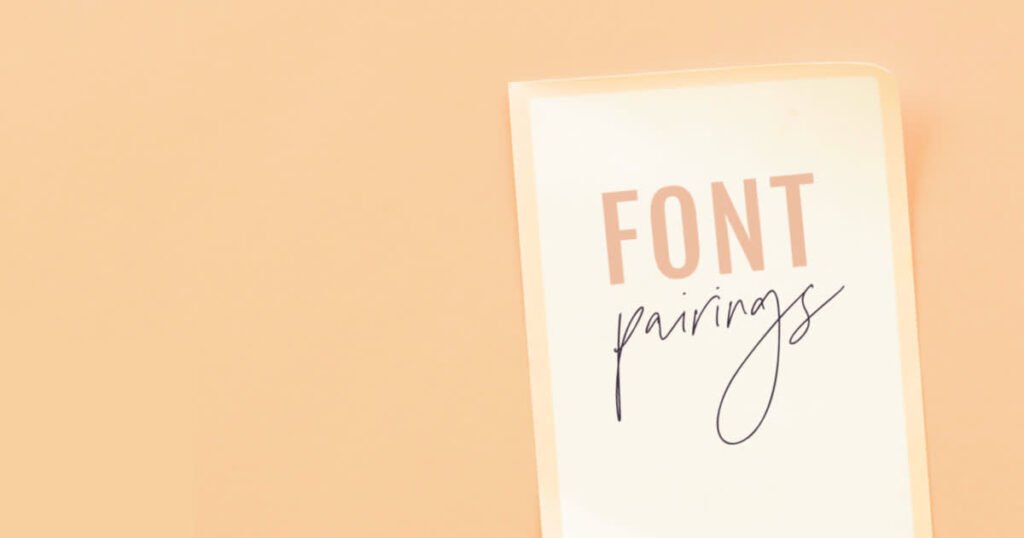
Picking the best letters is definitely an art form. It is also a bit of a science. You need to know exactly what works well together.
Here is how you do it for your luxury branding and brand identity.
Balancing Contrast and Harmony
You do not ever want your fonts to fight with each other. You want them to happily dance together. You must work hard to find the perfect balance.
You can try using different weights. Use a very heavy, dark title for the big letters. Then use a very light, thin font for all the small details.
This naturally brings peace and harmony. The font combinations must absolutely share something nice.
Maybe they share the exact same height. Maybe they share the same perfect roundness. When they share a tiny detail like that, they look like close friends. This is true for all of your creative projects.
Finding sweet harmony makes your hard work completely shine.
Prioritizing Legibility Across Print and Digital
Legibility just means how easy it is to quickly read the words.
If people cannot read your words, they will sadly leave. You must make very sure your words look good in small sizes.
For web design or website design, shiny screens can blur tiny lines very fast. You need a very clean font for all the small parts.
For a printed business card, wet ink can spread and look messy.
You must test all your good choices carefully. The important letters in your marketing materials must always stay sharp and dark.
If you test them well, your target audience will be very happy and thankful.
Aligning Typography with Your Brand Archetype
An archetype is just like a character type in a nice storybook. Is your brave brand like a wise old king? Or is your fun brand like a magical young fairy?
Your picked letters must closely match your brand’s soul and heart. If you want to seem like a wise king, use a heavy, old serif typeface.
If you want to seem very new and fast, use sleek modern fonts. Your strict visual identity must always match your big words.
Think very deeply about this when you are making new social media posts. Even on social media, your smart brand voice must be loud and clear.
Good font choices easily tell the right story to everyone. Your true brand’s personality will be perfectly shown to the world.
Common Mistakes to Avoid When Creating Luxury Font Pairings
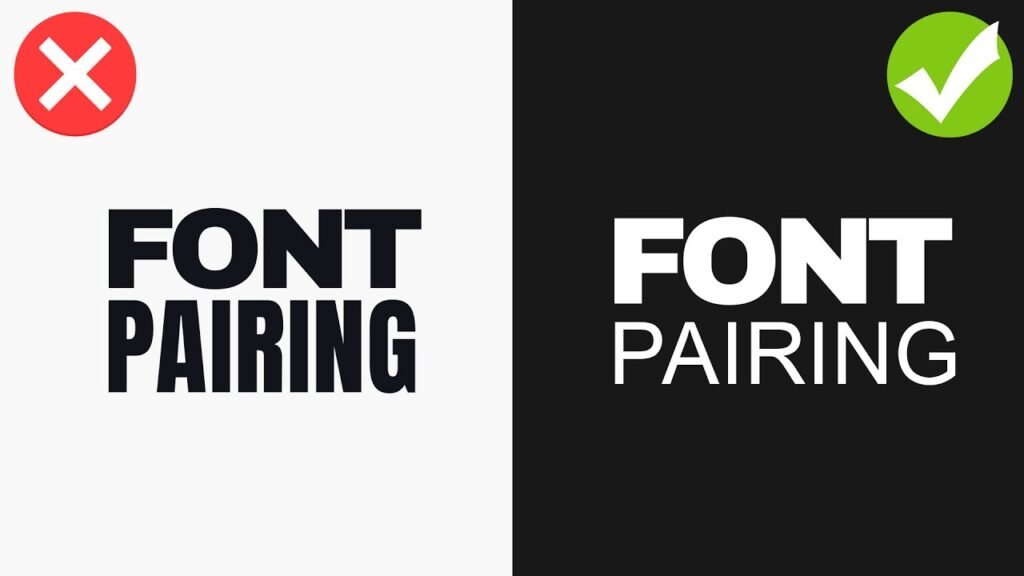
Everyone definitely makes little mistakes from time to time.
We really want to help you easily avoid them. Paying close attention to mistakes makes your design projects much better.
Let us talk about exactly what not to do when picking your letters.
Overcomplicating with Too Many Fonts
Please do not use too many different kinds of letters. It always makes a very big, ugly mess.
Just two fonts are almost usually enough. Sometimes three is okay if you are very careful. But four is far too many for one page.
Your whole brand identity will instantly get lost in the mess. It will clearly look confusing and weird. Your nice readers will not even know where to look first. Keep it simple and nice. A clean, simple page shows huge confidence and power. That is exactly why top luxury brands stick to just one or two choices always. Less is truly and honestly more.
Finding the right fonts means you absolutely do not need a lot of them.
Ignoring Kerning and Letter Spacing
Kerning is the tiny space between just two letters. Letter spacing is the total space between all letters in one word.
If letters are far too close, they bump and touch. It looks terribly messy and bad. If they are way too far apart, the poor word breaks in half.
Detail matters a huge amount right here. You must look very closely at the empty spaces. A beautiful font family easily looks cheap and silly if the spacing is bad. Always firmly check the spacing in your big titles. Your big creative projects absolutely deserve your careful checks.
The empty white space is just as important as the dark ink. Make sure you use good fonts that have perfect spacing.
FAQ’s:
What Are the Best Free Luxury Font Pairings Available on Google Fonts?
Google Fonts is an amazing place. It holds many free fonts that are safe for commercial use. One of the absolute best pairs is using Cormorant Garamond for the big title and a simple sans-serif for the small text.
Another perfect and great choice is using EB Garamond. Both are very fancy and old. They are totally perfect Google font pairings for everyone. They easily give a very rich feel without ever costing any money. You can find many wonderful and safe options right there.
Why Do So Many Luxury Brands Use Serif Fonts?
A serif font looks very old, safe, and extremely rich. It has tiny little feet on the edges of the big letters. These tiny feet make the words look stable and planted. Many famous, rich fashion brands loudly use a classic serif.
It clearly shows history and time. It shows they have been around for a very long time safely. It naturally provides a gorgeous classic look. People easily trust old things that look stable and safe. It is a very great choice for selling expensive, nice things.
Can I Use More Than Two Fonts For A Luxury Brand Identity?
You definitely can, but it is a very big risk. Using only two different fonts is always safe and smart. It quickly creates a perfect balance that people love. If you desperately use three, one should be very quiet and small.
Maybe just use it for tiny numbers or tiny dates. But please do not use many loud, big fonts. Your logo design should only ever have one or two styles safely. Keep your visual identity strict and very neat. A neat, clean look is always much better for luxury branding.
What Should I Avoid When Pairing Fonts For Luxury Branding?
You must strongly avoid funny or silly cartoon fonts. Avoid any fonts that look exactly like comic books. Do not ever mix two fonts that look almost the same. They will just look like a silly mistake.
Make sure there is always enough bright contrast. Use your different weights wisely. Do not ever ignore how the text looks in very small sizes. Avoid rushing your big design projects at all costs. Always take your sweet time to carefully pick the best font pairings.
How Do I Know If My Font Pairing Actually Looks “Premium”?
Please show it to other people. Ask them nicely how it makes them feel deep down. Does it feel like a very fancy hotel?
Or does it feel like a cheap, noisy store? A true premium look often has lots of bright space around the words.
The body text is incredibly neat and quiet. The big title has a wonderful touch of sophistication and class. If it looks perfectly clean and proud, it is definitely premium. Look closely at other smart luxury brands for good ideas. See exactly how they safely use their beautiful luxury fonts.
Which Free Fonts Can Create A Luxurious Feel For My Brand?
There are so many wonderful free fonts available right now.
We really love the font Tenor Sans. It is a wide, proud font that looks very expensive and clean.
Another truly great one comes straight from the wonderful Indian Type Foundry. It is extremely well-made and gorgeous. You can also happily look for the hard work by the amazing designer, Juan Pablo Del Peral.
His beautiful letters are deeply crafted with care. These are wonderful, smart choices for your fun social media posts and your big website. They easily prove that you truly do not have to spend a lot to look totally great.
What Fonts Do Famous Luxury Fashion Houses Use?
Many famous fashion houses safely use perfectly custom fonts. They happily pay someone to carefully draw letters just for them safely. But these big fonts usually have sharp high contrast. They have very thick heavy parts and razor thin strokes.
Many fashion houses use a gorgeous classic font like Didot or Bodoni. Some bright new houses use a very neat, bold, clean sans-serif. It gives a very sharp and loud modern look. They desperately want to quickly stand out and firmly look powerful to everyone.
They safely know that detail matters completely in high fashion.
How Do Font Pairings Impact the Perception Of A High-End Brand?
Perception is just how people quietly see you and your business. Your font choices are truly the neat clothes your words always wear.
If your important words wear messy, dirty clothes, people quietly think your sweet brand is messy.
If your words happily wear beautiful, clean clothes, people naturally think your sweet brand is totally amazing.
The sense of sophistication completely comes from very good typography. A beautifully perfect font pairing quickly tells the happy customer that you deeply care about high quality. It clearly shows you are a very elegant brand. It easily makes them want to safely buy from you again.
Conclusion
We really hope you enjoyed learning all about luxury font pairings with us today at Designers Choice. Finding the perfect match takes lots of good practice. But it is very fun and exciting.
Whether you are happily using Canva font pairings or highly pro tools, these simple rules loudly apply. You must gently think about your target audience. You must easily find a neat clean font for your long body copy. You must let your big title boldly shine as a giant display font.
Always proudly keep a neat professional look bright in your mind. Your website design and your printed marketing materials will look so much better soon. The truly right fonts loudly change absolutely everything for the better.
You clearly have many good fonts to quickly choose from today, even safely for commercial use.
We are very excited to proudly see what you completely make for your next project. Please keep working hard on all your creative projects. Show off your beautiful font pairing examples to all your nice friends.